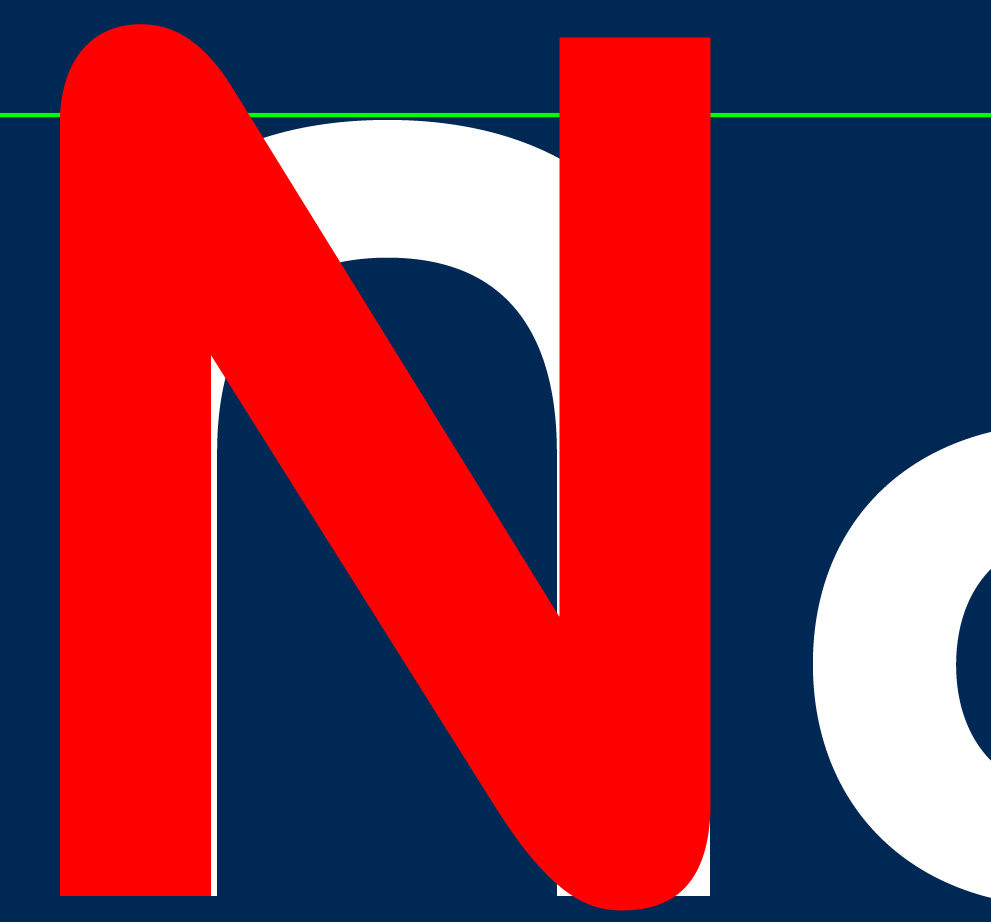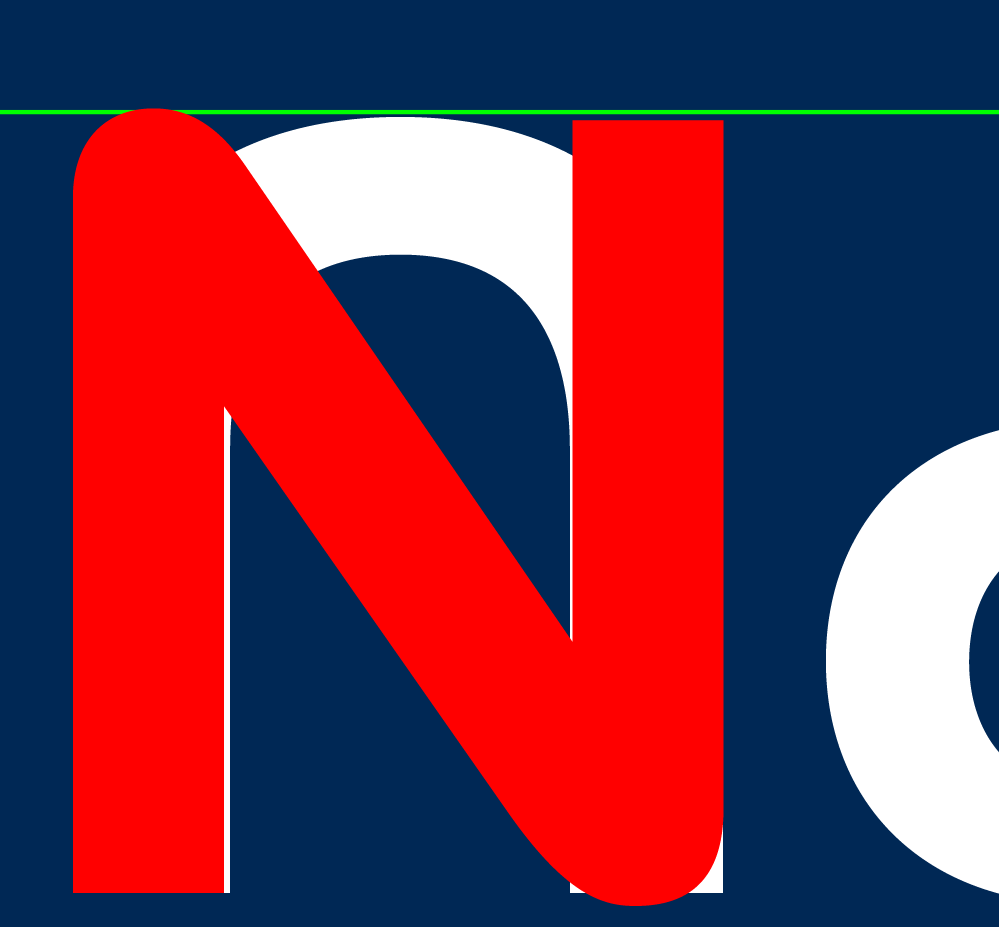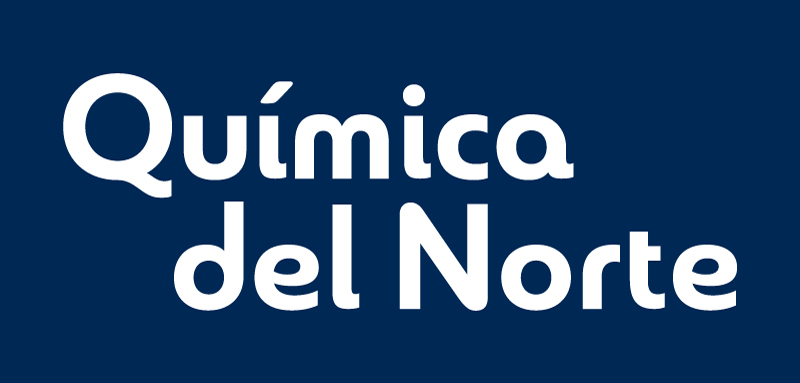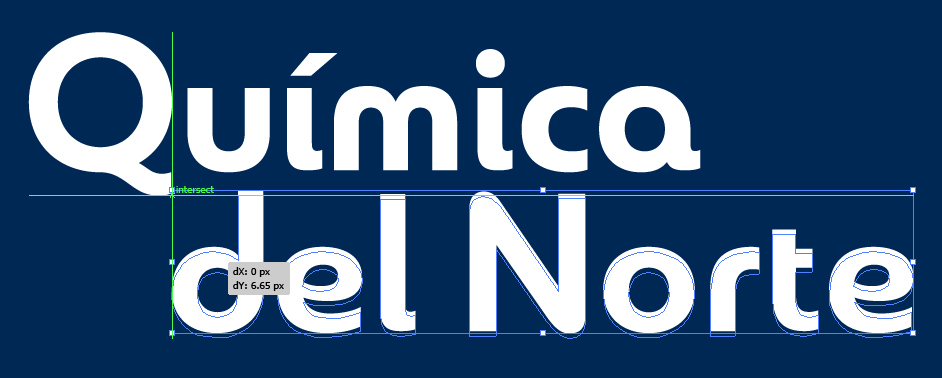
Feedback for wordmark made by a web developer
Hi! I'm a web developer who happened to create a typeface for a wordmark and wanted to look for advice in typography forums.
I combined characters from 4 different fonts and used a few effects. I had access to a great collection of fonts from a graphic designer friend. I couldn't find a typeface with all the desirable features...
I've read that typefaces have a balance that need to be kept and it's not smart in graphic design to combine characters from different typefaces and distort them with effects.
I like the result but I don't know about the spacing (leading, kerning, tracking, baseline ratio), which was arranged by eye.
Your advice is very much appreciated! Do you recognize the used fonts?
Before addressing the spacing, I think you should address contrast modulation, stroke thickness and curves.
For example, |c| and |e| are far less monolinear compared to other letters. Top left of |m| and bottom right of |d| don’t curve properly. |Q| is probably a bit too thick and could be rounder. Also |r| and |t| need some attention.
Thank you Riccardo! Do you recommend a typeface with these features? It doesn't need to be in italics.
I can see that graphic designers are not necessarily type designers. My graphic designer friend congratulated me for my "font mixture".
We'll see what we can do to fix it.
Do you recommend a typeface with these features?
What precisely are the features you’re after? If, as it seems to me, you are looking for something in the Bayer/Bauhaus style, you could like one of these more or less recent takes on the genre: Quinoa, Madurai, Nordique (for the first two, look for alternate characters and stylistic sets).
Thank you very much for your recommendation of the Madurai font!!! It's exactly what I was looking for. I met the sister font Chennai in my quest but I thought it looked too rounded in the edges.
I'm trying to redesign the 15-year-old logo of a family business which has a Windows font. Where I live people don't care about typography quality, the only thing that matters is to have flashy shapes as business identity.
This is what it looks like now with a custom "N":logo_nuevo.jpg
The "N" is a same font size "Sol Pro Bold" character with a vertical scale of 90%.
Do you think that the "N" and the spacing look ok?
I don't like the alternate "N" because it lacks the roundness to fit with the other characters. Thanks for the suggestion. I didn't know about alternate characters included with a font.
This is what it looks like now:
I changed the acute accent for a rounded one included with the Sangli font, another sister font of Madurai.